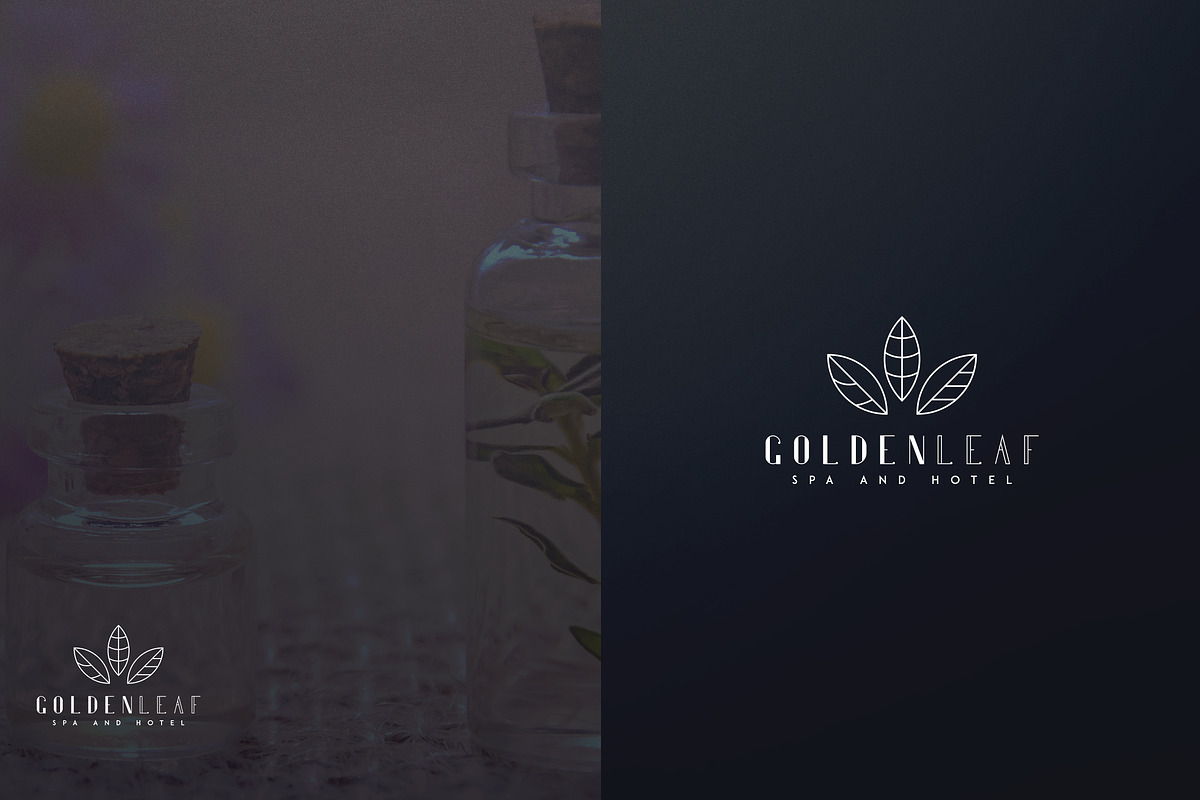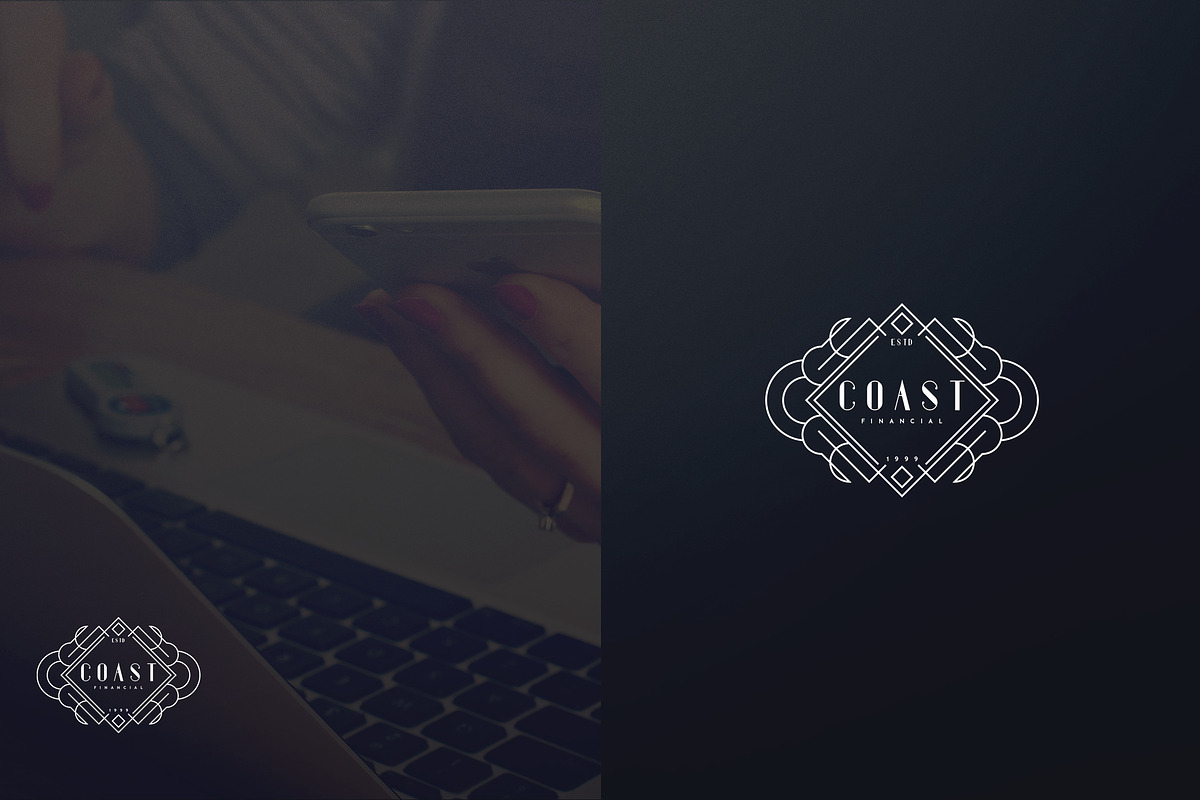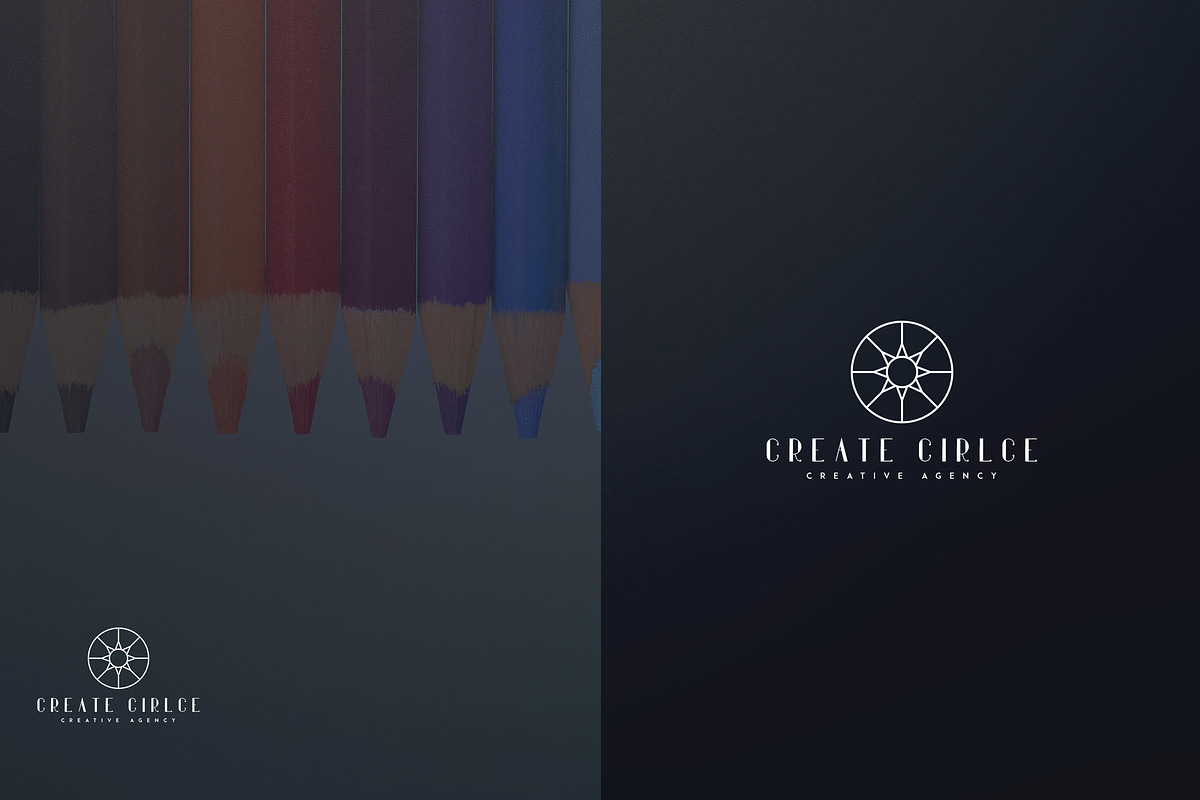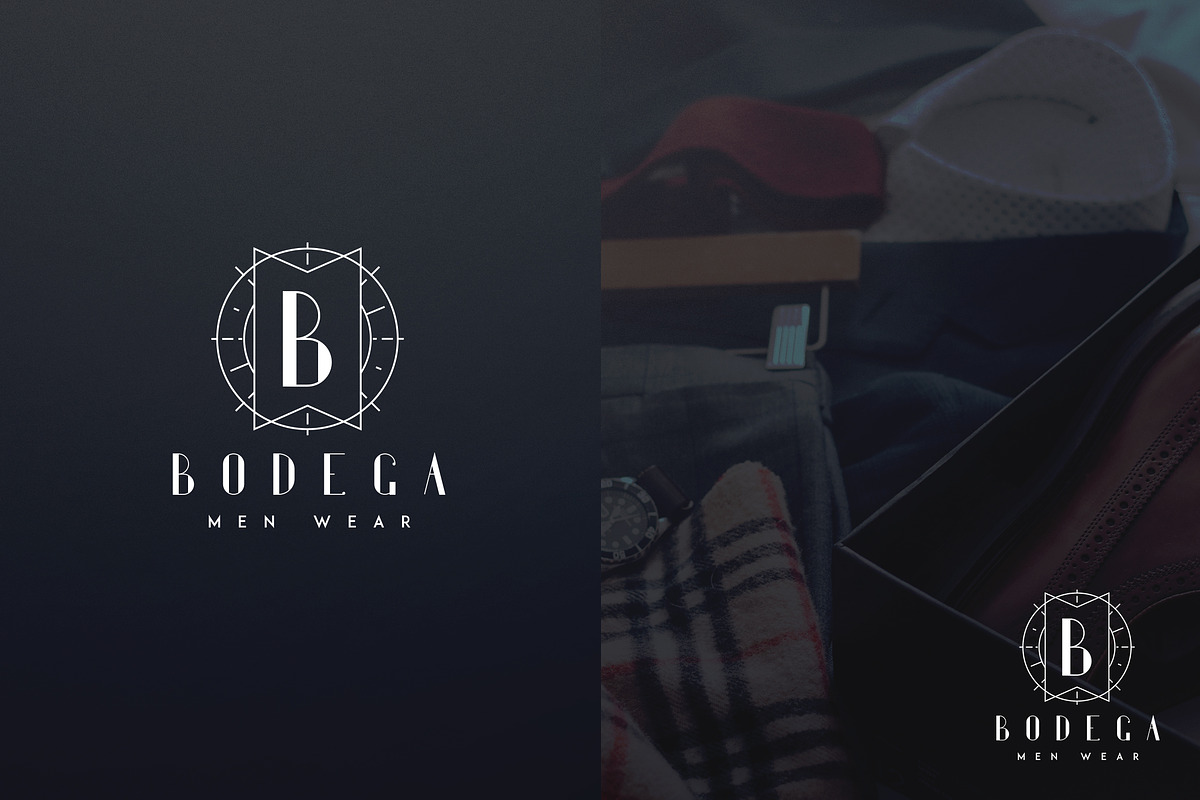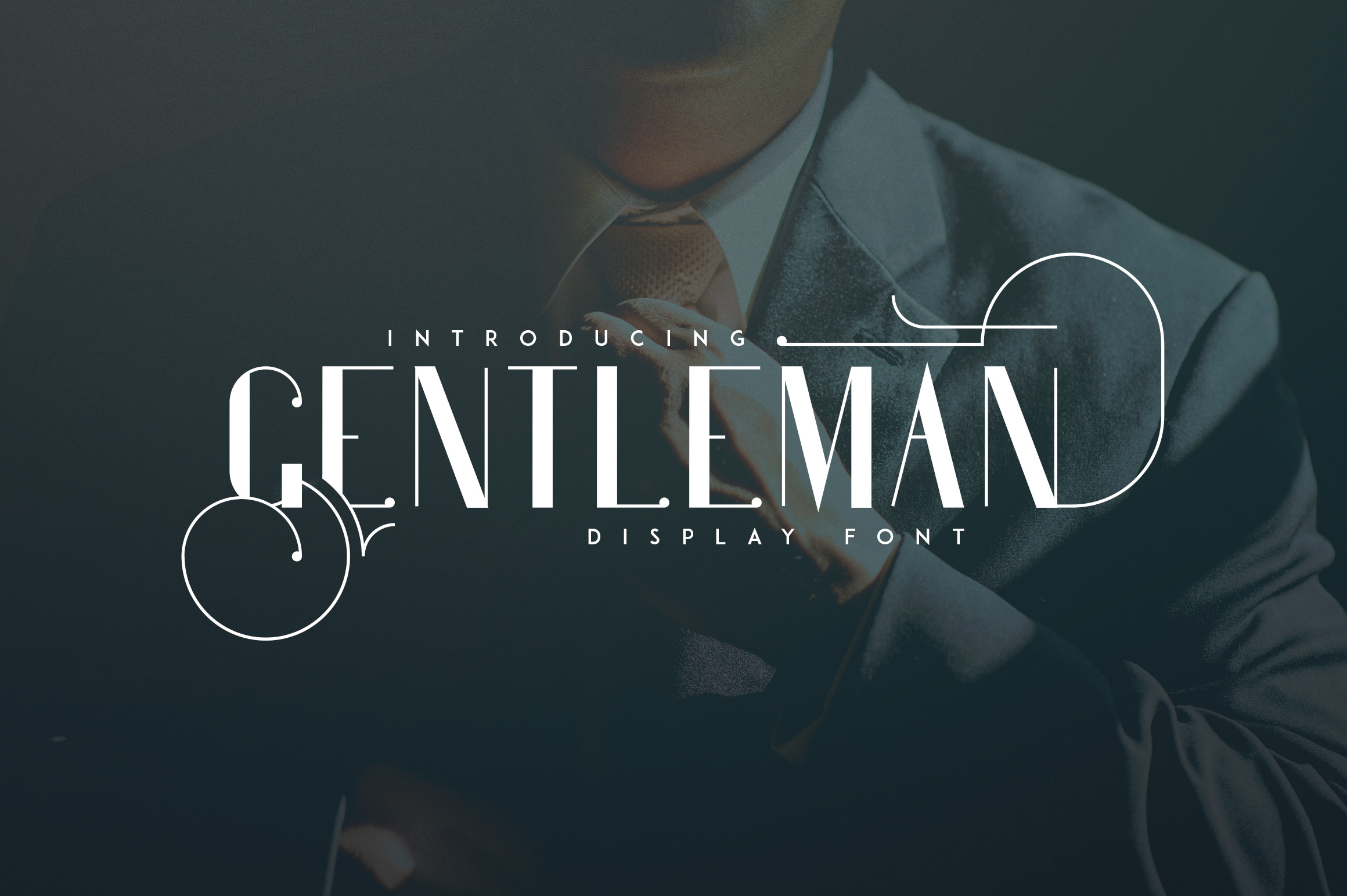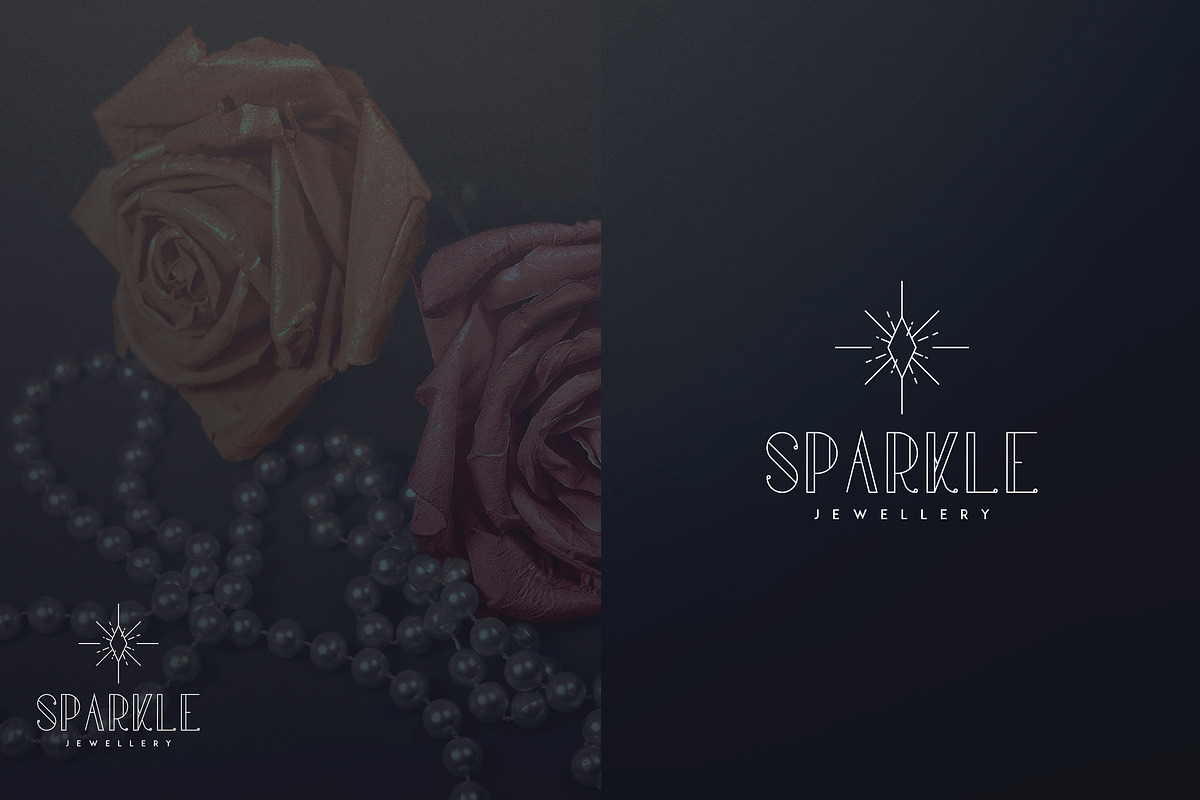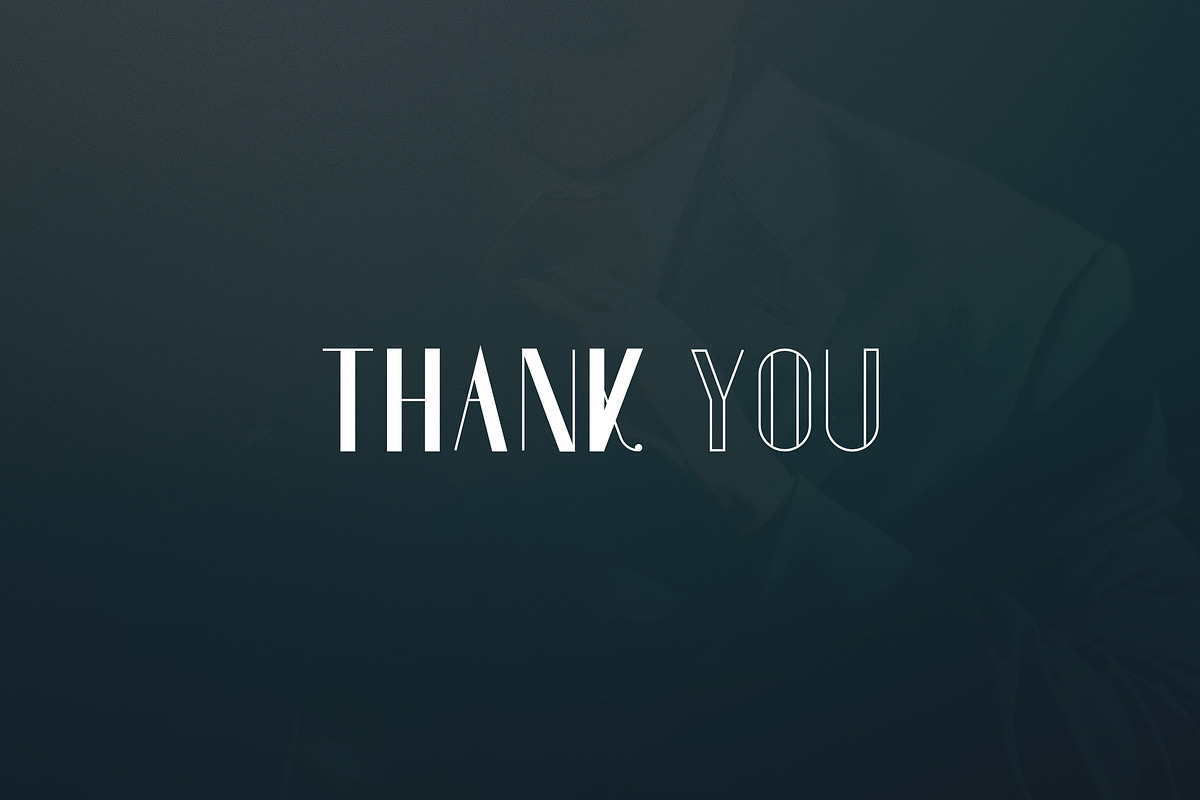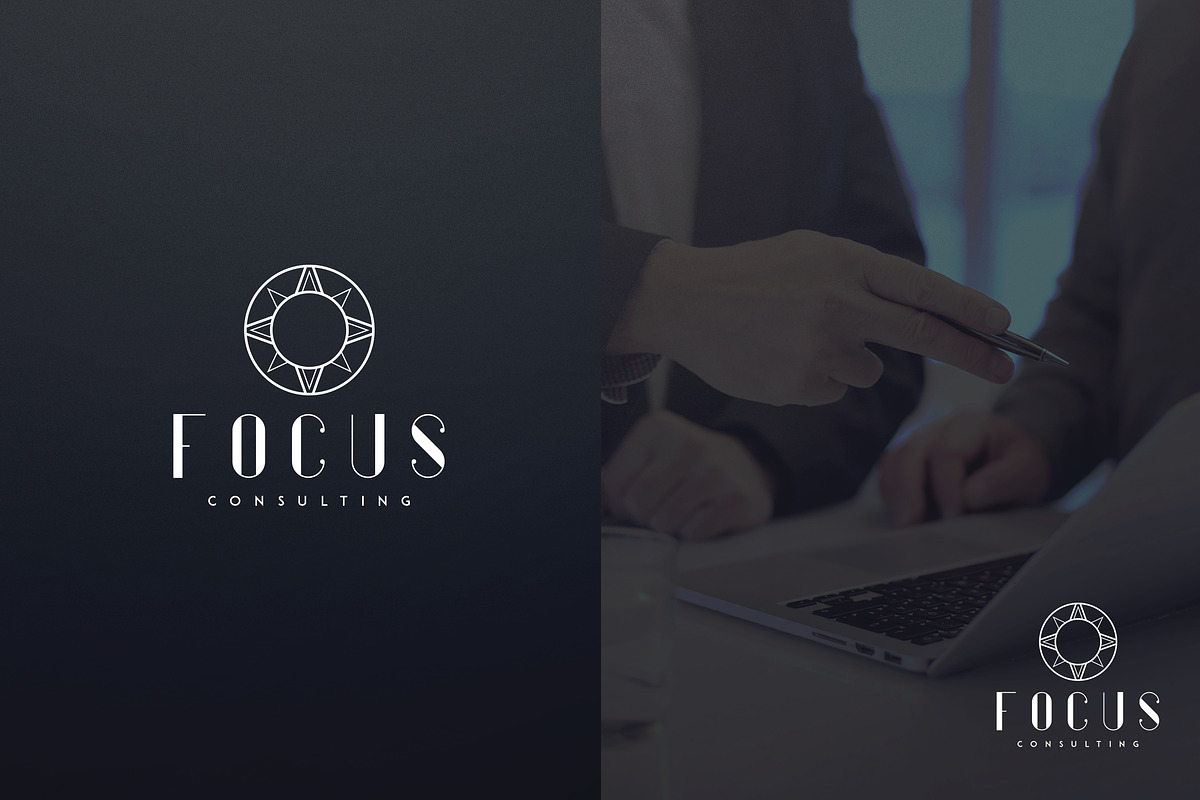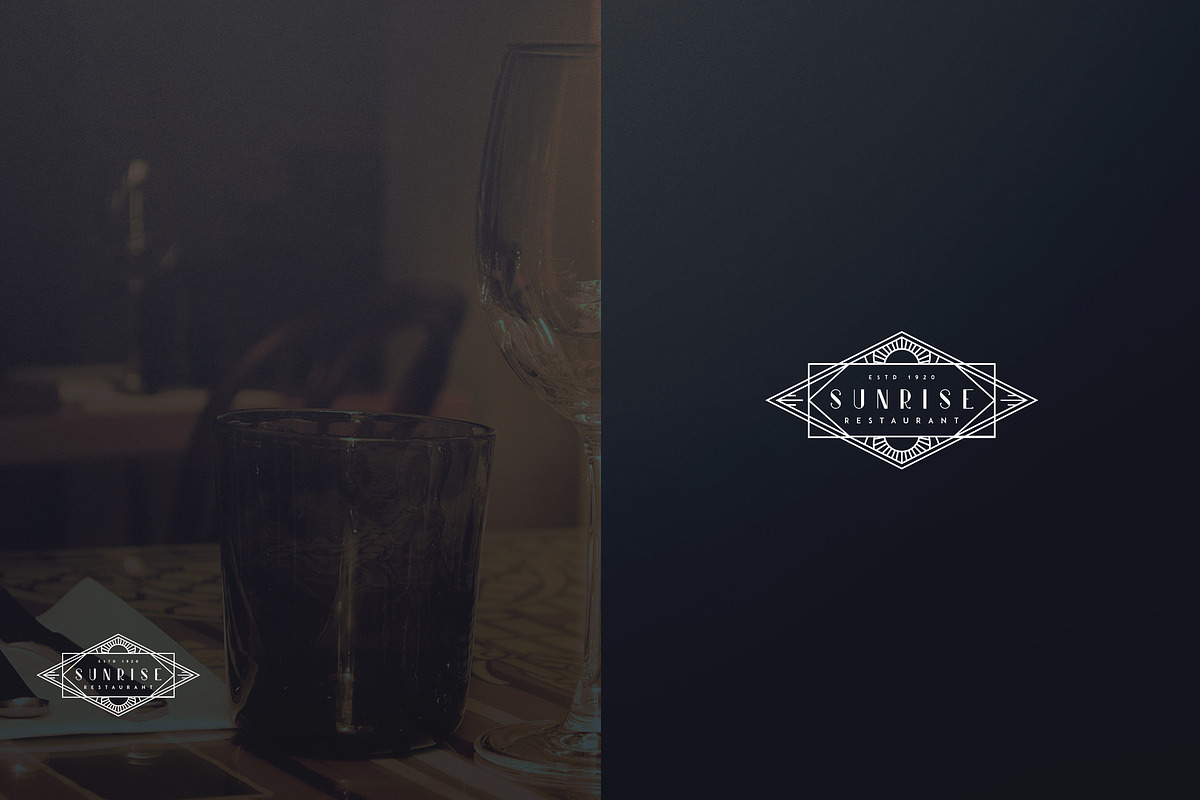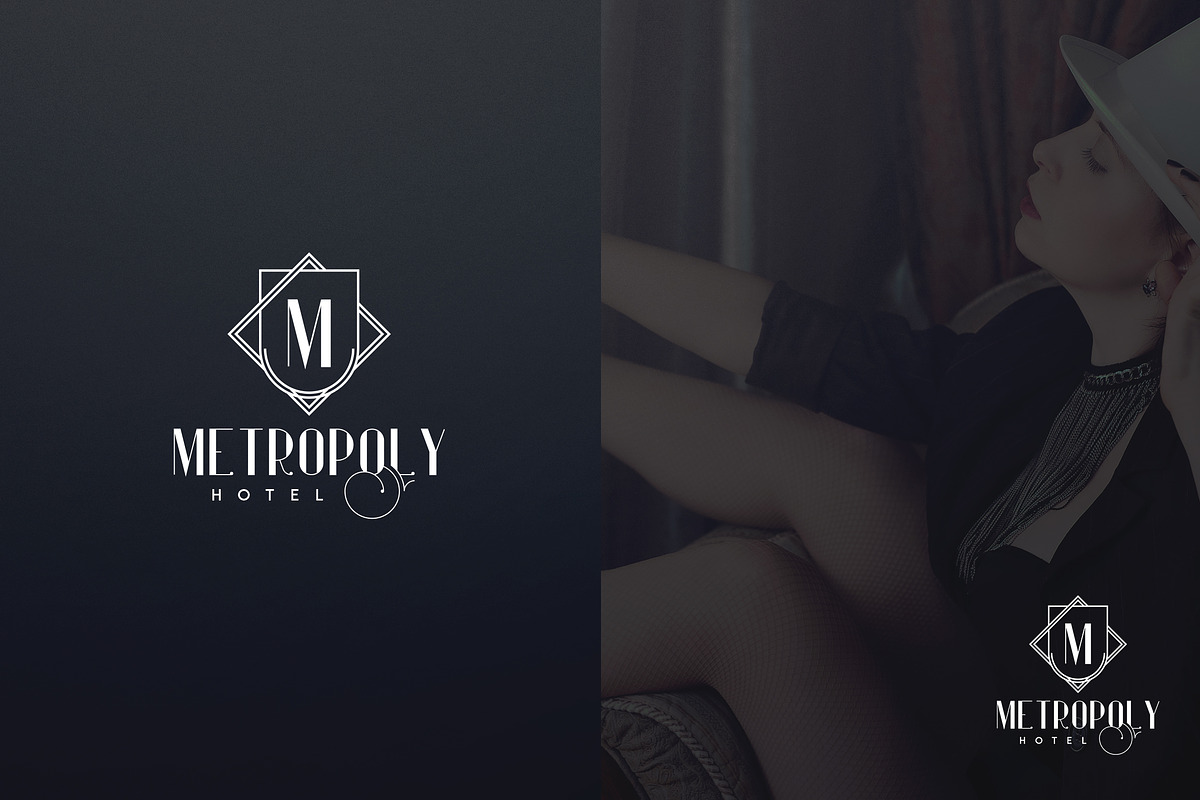
Gentleman font + 10 Logos
Gentleman Display font and Logo Templates
Gentleman is elegant display font with 3 alternative glyphs for each character. It's a very versatile font that works great in large and small sizes. Gentleman is perfect for branding projects, home-ware designs, product packaging, wedding invitations, magazine headers - or simply as a stylish text overlay to any background image.
- Uppercase,lowercase,numeral,punctuation & Symbol
- 3 Alternatives for every uppercase character
- 10 luxury premade logo templates